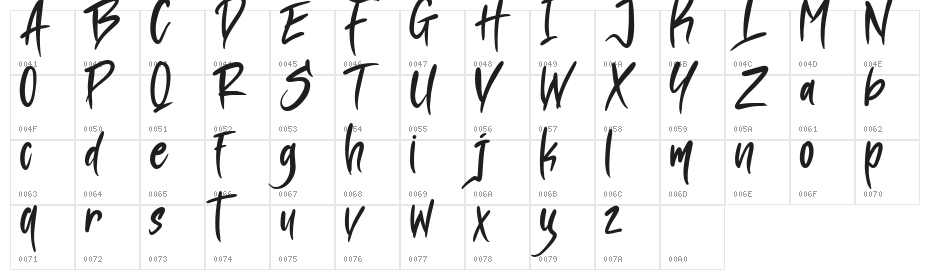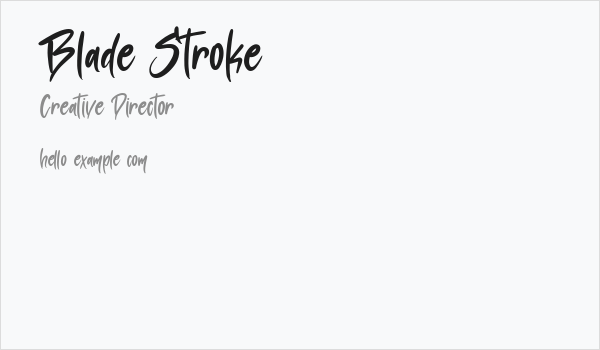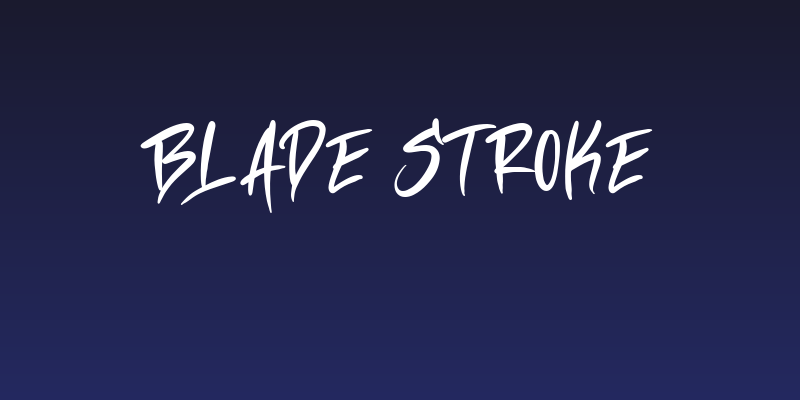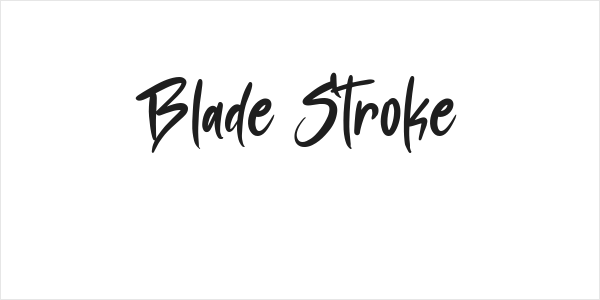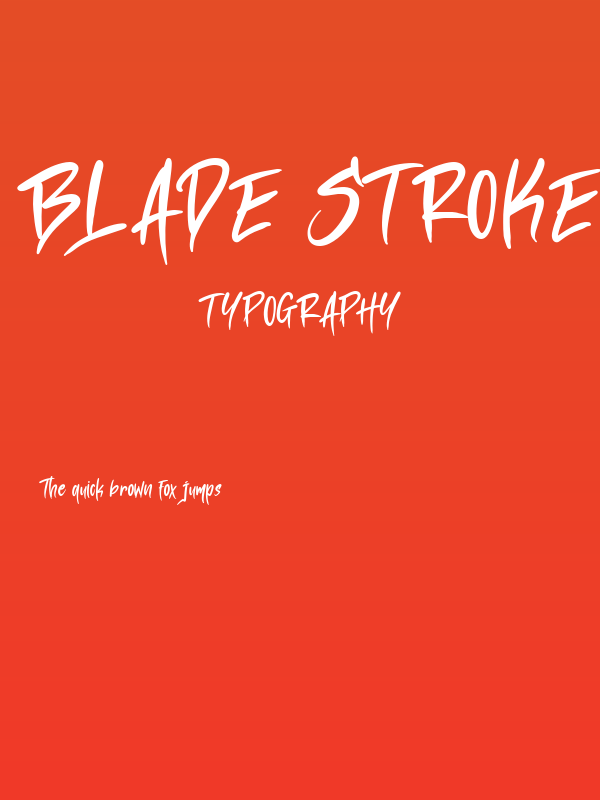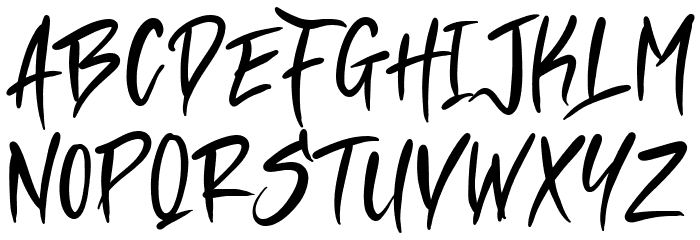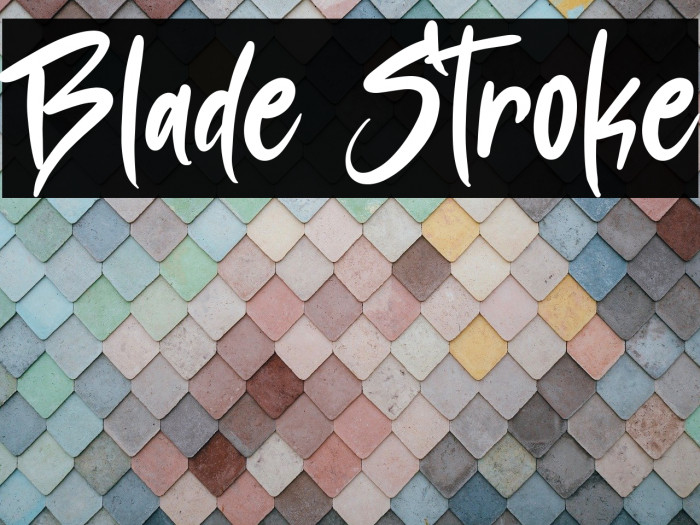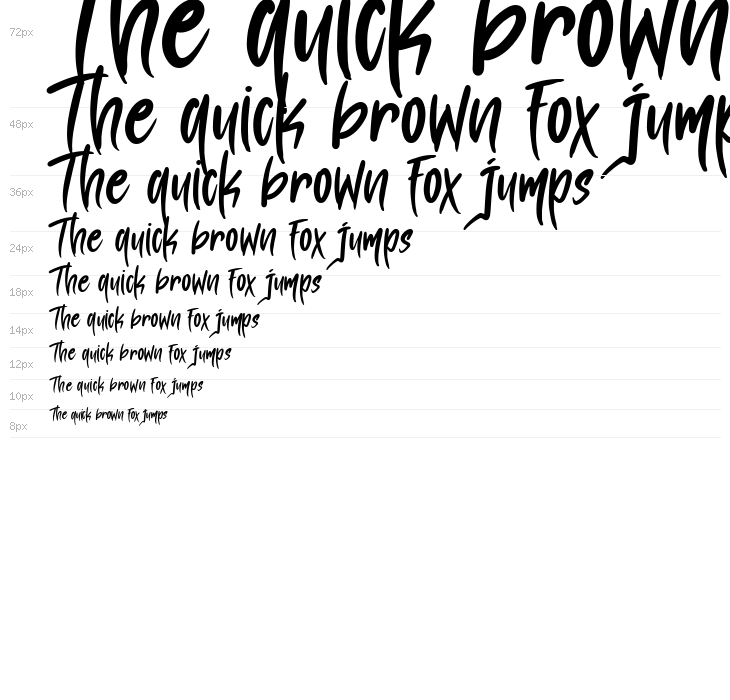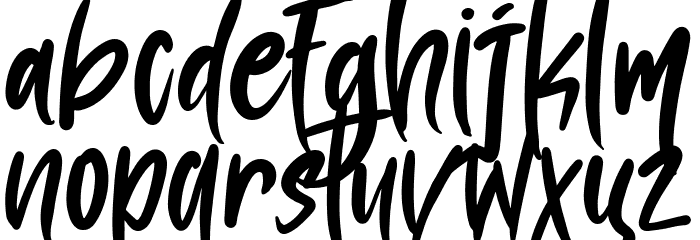
Blade Stroke Font
Blade Stroke Description
This font features a dynamic and energetic brush script style, characterized by its bold and expressive strokes. The letters have a hand-painted appearance, with varying thickness that adds a sense of movement and fluidity. The uppercase and lowercase letters are designed with a casual flair, making them ideal for projects that require a personal touch. The overall design is both modern and artistic, with a slightly rebellious edge. The font's unique style is perfect for creating eye-catching headlines, posters, and branding materials that stand out.
| Proposed Projects | Ideal for posters, branding, headlines, and any design needing a bold, artistic touch. |